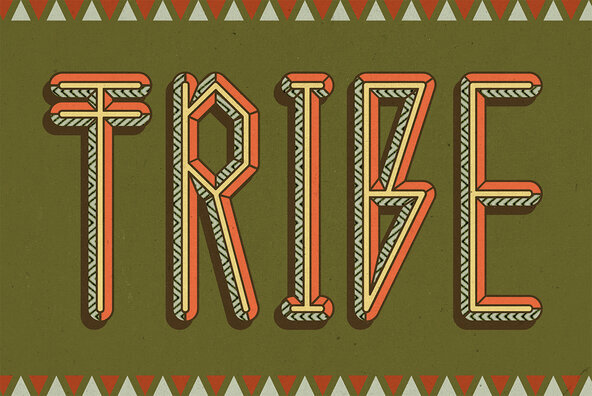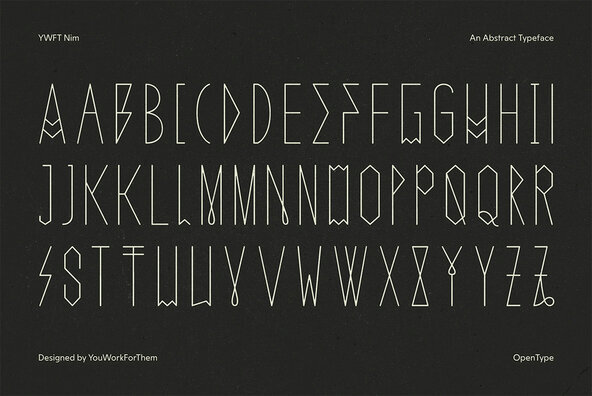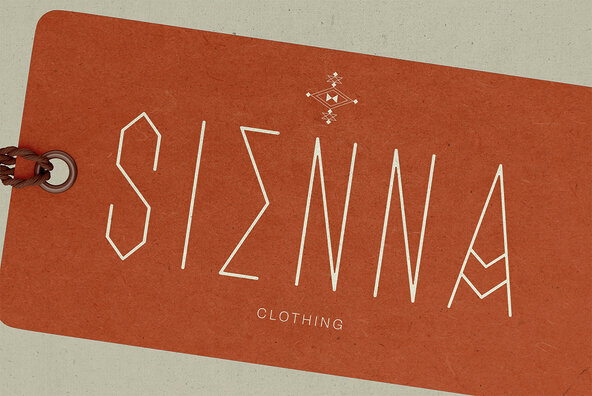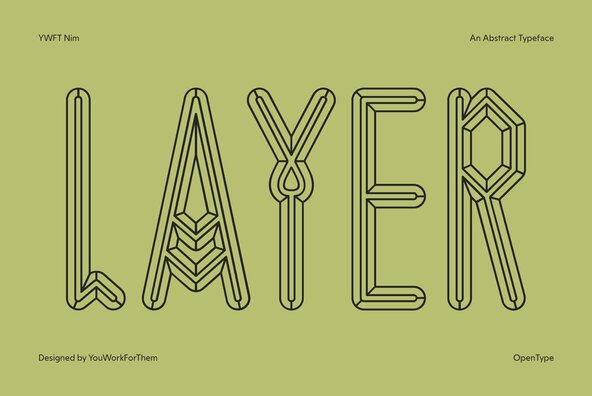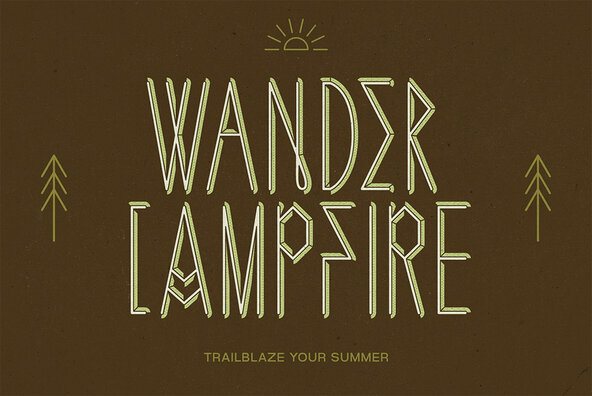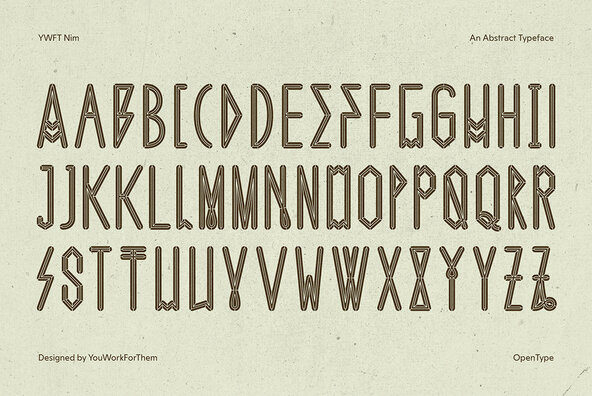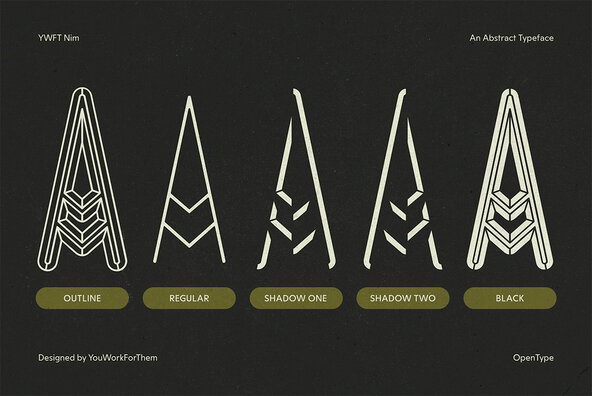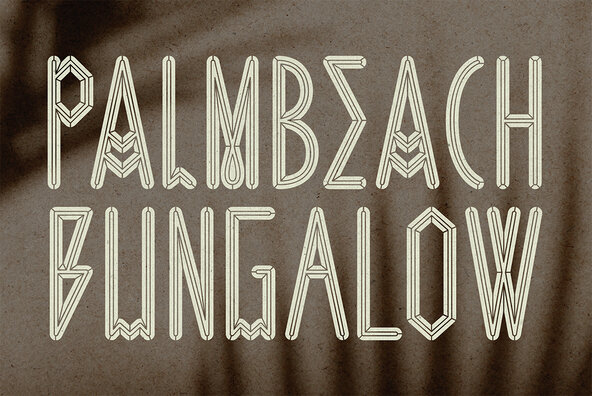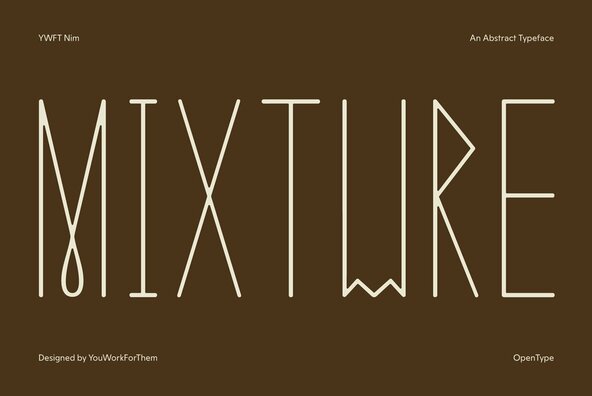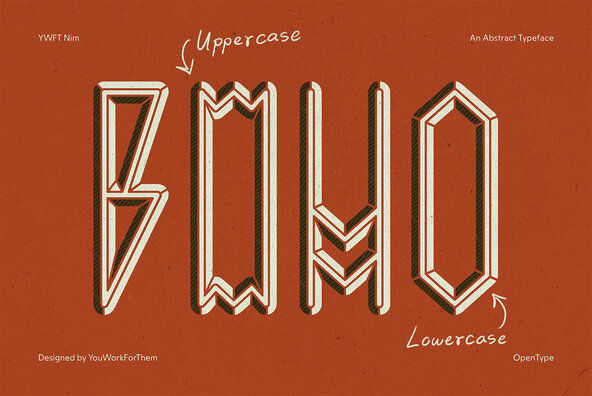
YWFT Nim Font
YWFT Nim is a bold and versatile font designed to bring layered depth and architectural precision to your projects. Exclusively crafted by YouWorkForThem, this abstract typeface is a powerhouse for designers looking to create striking headlines, posters, and impactful visuals. With the ability to create bevel, outline, 3D, and shadow effects, YWFT Nim offers a near-infinite range of possibilities, making it an exceptional tool for modern and clean designs. This typeface’s architectural nods and sleek forms make it highly functional and visually dynamic, allowing for precise layering and creative expression across multiple applications. YWFT Nim’s distinct structure is a declaration of individuality and creativity. The font is ideal for projects demanding a bold and innovative aesthetic: With its clean lines and modular design, YWFT Nim pays homage to architectural forms, offering unmatched versatility and style. Its layered effects enable designers to achieve depth and dimension, creating compositions that are as functional as they are beautiful. Additional products used for slideshow images:YWFT Nim Typeface: A Layered Approach to Modern Typography
Perfect for Modern Design
A Unique Statement for Designers